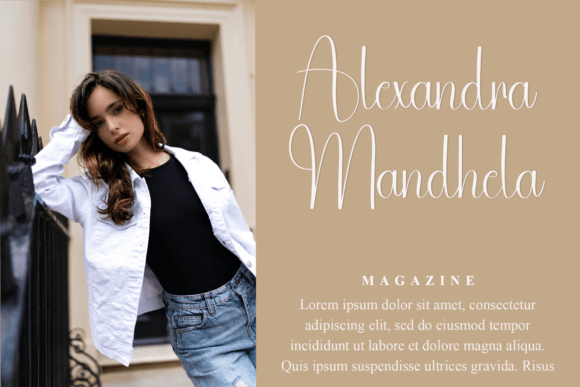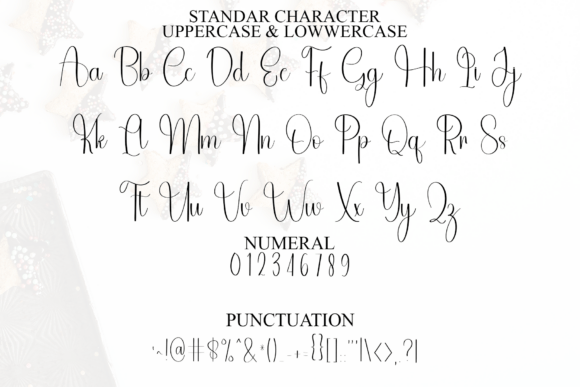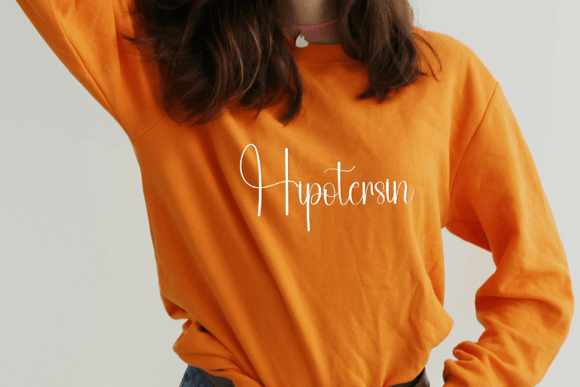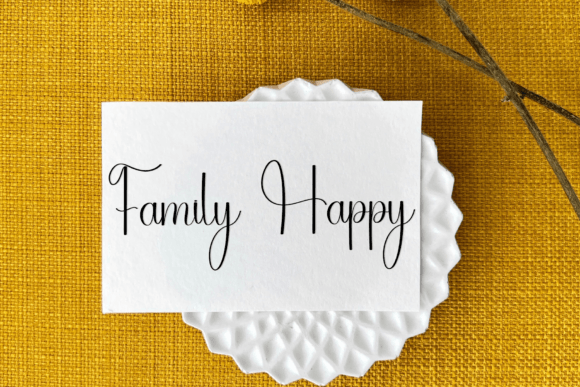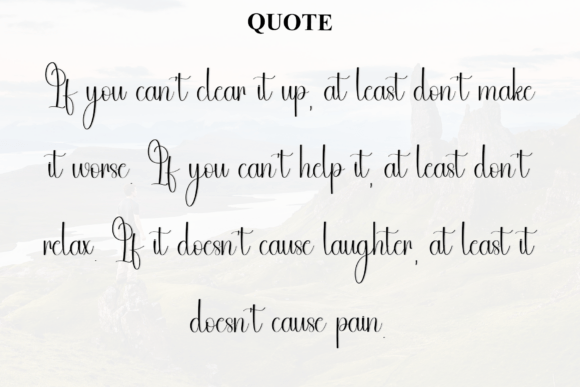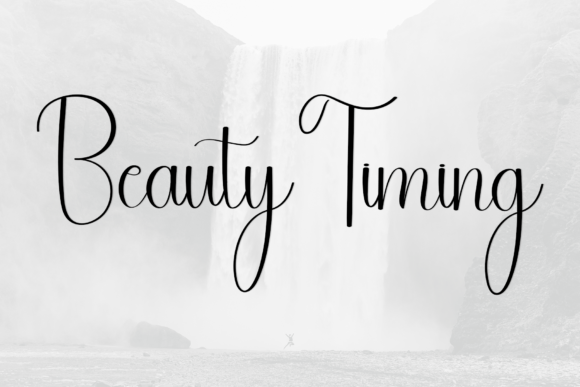
The Perfect Font for a Personal Touch: A Deep Dive into Goodtiming
I’ll never forget the time I was working on a wedding invitation project, and my client asked for a font that was ” elegant, yet playful” and would make their guests feel like they’re part of a special moment. I scoured the internet, tried out countless fonts, but none seemed to fit the bill. That was until I stumbled upon Goodtiming – a beautiful script font that instantly captured the warm, friendly vibe we were going for. In this article, I’ll share my love for Goodtiming, its features, and how you can make the most of it in your designs.
An Honest Review of Goodtiming
What I Love About Goodtiming ✨
- ✅ Smooth, flowing letters that give it a natural, handwritten feel
- ✅ Perfect for personal projects, invitations, or any design that needs a warm touch
- ✅ Easy to read, even at smaller font sizes
- ✅ Highly versatile – works well for both digital and print designs
- ⚠️ Some letters may require manual kerning for optimal spacing
- ⚠️ Limited availability of condensed or italic styles
- Explore OpenType features, such as Stylistic Alternates and Glyphs, to add variety to your text.
The Story Behind Goodtiming
Goodtiming was designed with the intention of creating a font that captures the warmth and friendliness of handwritten script. Inspired by classic calligraphy and modern digital design, Goodtiming’s creator aimed to craft a font that would make designs feel more approachable and inviting. Whether it’s for a wedding invitation, a personal blog, or a social media post, Goodtiming is the perfect choice for adding a touch of elegance and playfulness.
Q: What type of designs is Goodtiming best suited for?
A: Goodtiming is perfect for personal projects, invitations, social media designs, and any project that requires a warm, friendly touch.
Q: Does Goodtiming support OpenType features?
A: Yes, Goodtiming supports OpenType features, including stylistic alternates and glyphs. You can access these features in compatible design software, such as Adobe Photoshop and Illustrator.